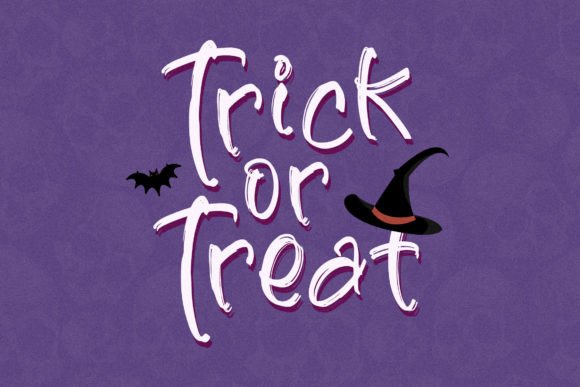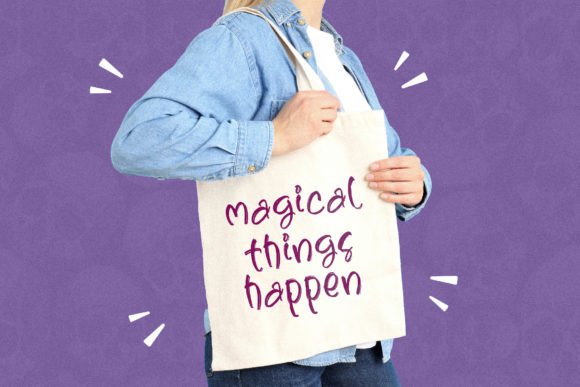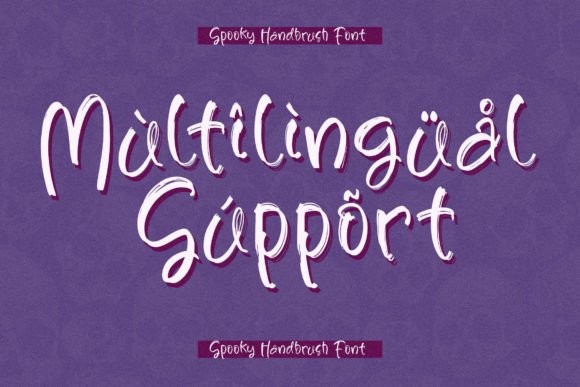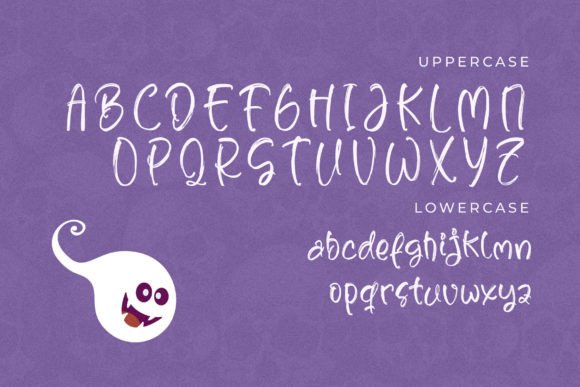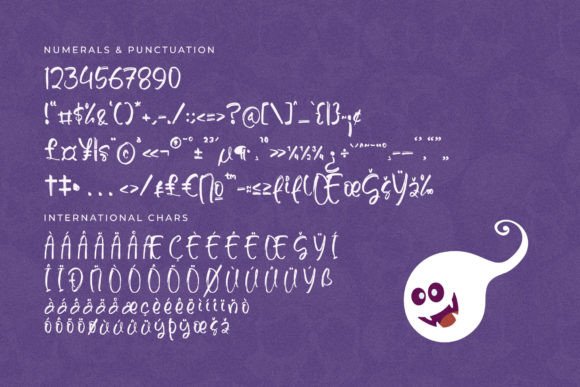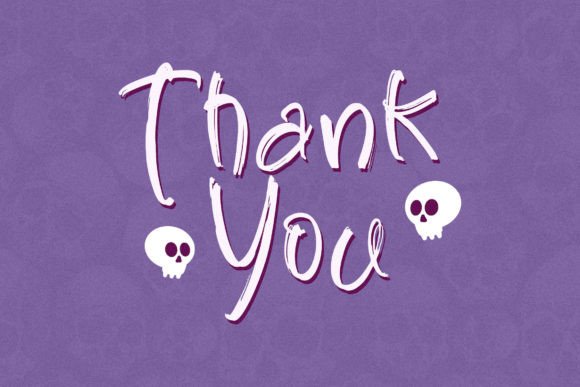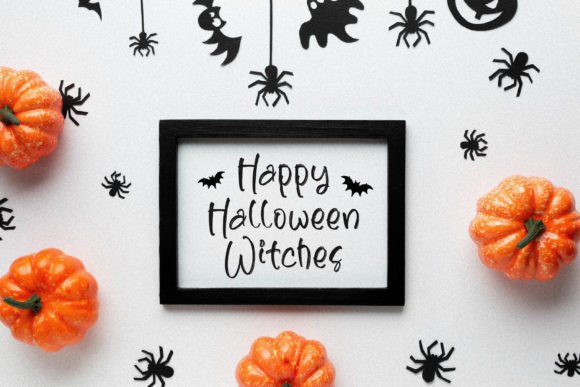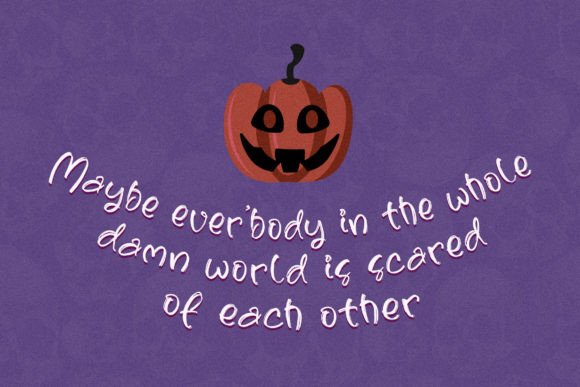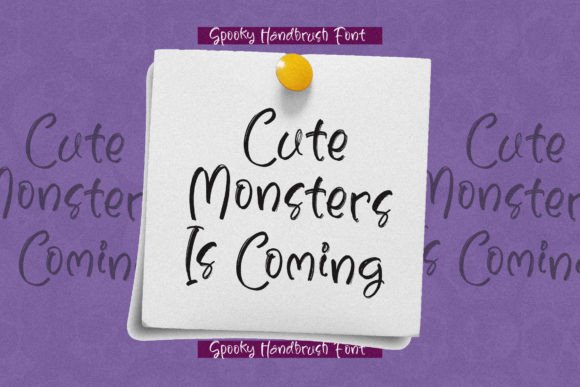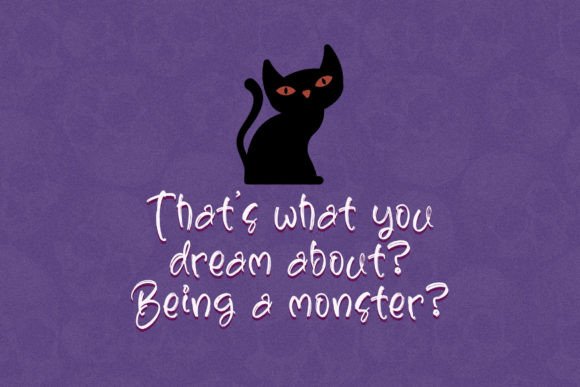
Skull Dutchman Font
Skull Dutchman Font Download – Spooky Handbrush Script
The Skull Dutchman Font download is a spooky handbrush typeface that combines bold energy with eerie style. Perfect for Halloween or any project that needs a haunting aesthetic, this font adds dramatic flair to your designs. With its textured strokes and unique handwritten character, Skull Dutchman ensures your work grabs attention while keeping a creative edge.
A Bold and Spooky Handbrush Style
The Skull Dutchman Font download features strong brush strokes with a slightly rough finish, giving your designs an edgy and spooky appeal. Its dramatic curves and authentic hand-drawn quality make it a standout choice for projects that need boldness and personality.
Perfect for Halloween and Dark-Themed Projects
Halloween designs come alive with the Skull Dutchman Font download. Use it for party invitations, spooky greeting cards, event posters, trick-or-treat bags, or themed apparel like t-shirts and hoodies. Its haunting style sets the perfect mood for October celebrations.
Versatile for Creative Applications
Beyond seasonal use, the Skull Dutchman Font download is highly adaptable. It fits beautifully into branding projects, book covers, quotes, product packaging, mugs, and posters. Its spooky yet stylish design makes it a favorite for artists who want their work to stand out with strong visual identity.
Readability with Character
While spooky fonts often risk being too decorative, the Skull Dutchman Font download maintains readability. Its bold handbrush strokes are eye-catching yet clear, making it suitable for both large titles and smaller text. This balance ensures your designs look professional while keeping their creative edge.
Why Choose Skull Dutchman Font?
There are many spooky typefaces available, but the Skull DutchmanFont download distinguishes itself through its unique handbrush texture, versatility, and haunting charm. It’s not only perfect for Halloween but also for creative branding projects that need a striking look.
Add Haunted Energy to Your Designs
Typography sets the tone of a project, and the Skull DutchmanFont download allows you to add haunting energy and bold creativity to your work. From seasonal posters to professional branding, this font makes your designs stand out with spooky elegance.